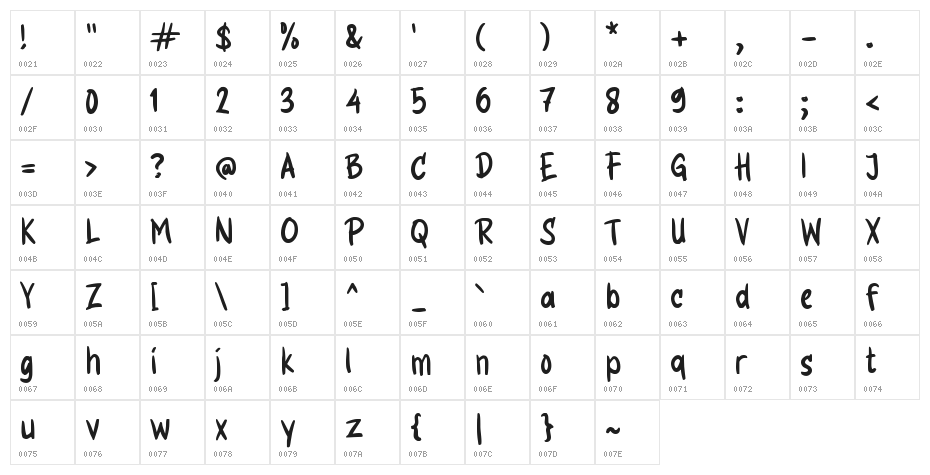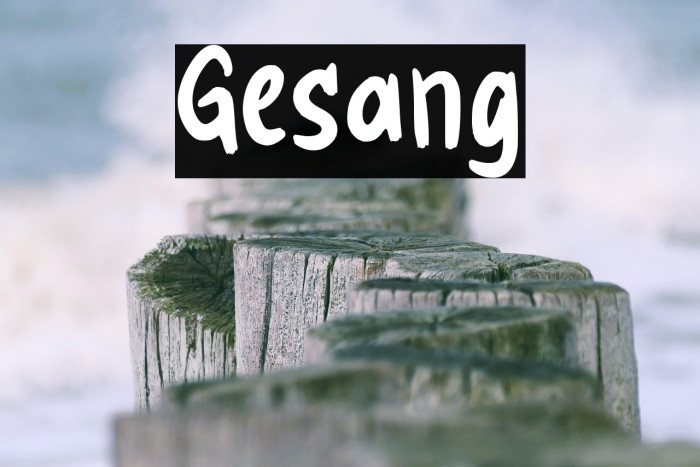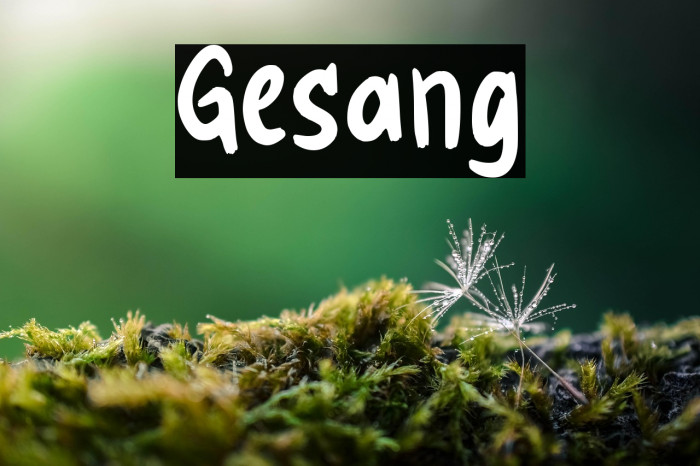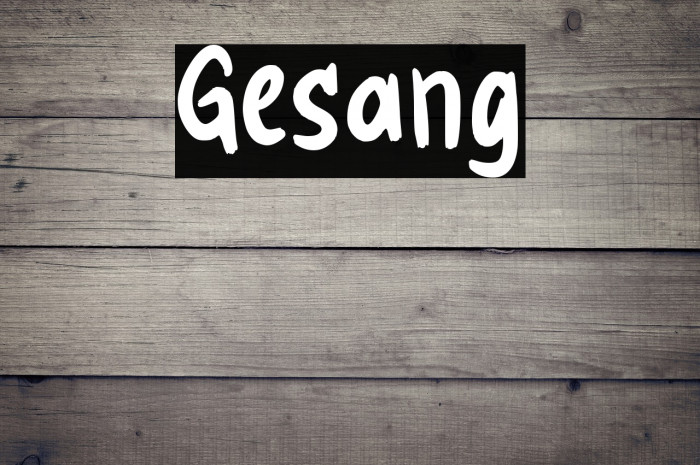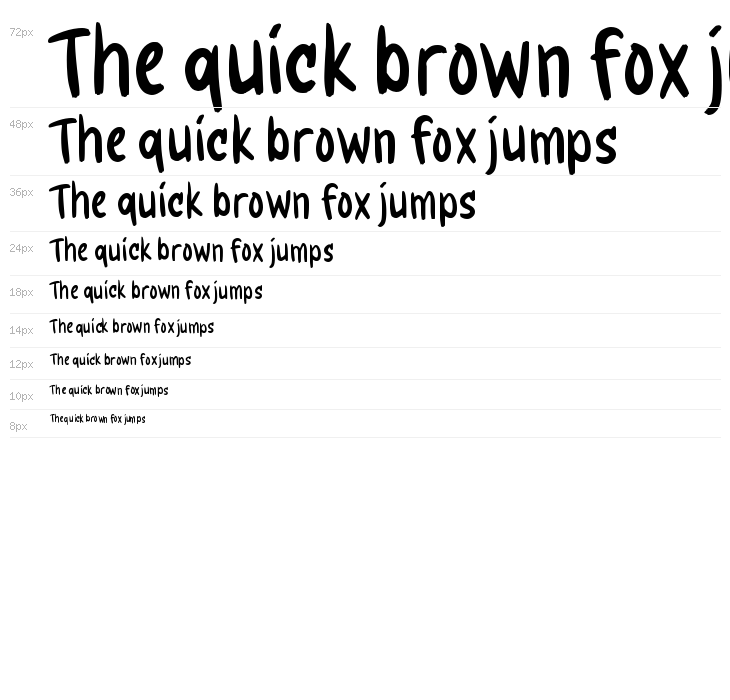
Gesang Font
Gesang Description
This font exudes a playful and energetic vibe with its bold, handwritten style. The characters are slightly irregular, giving it a casual and informal appearance. The uppercase and lowercase letters maintain a consistent flow, while the numbers and special characters complement the overall aesthetic. The strokes are thick and rounded, adding to its friendly and approachable feel. This font is perfect for projects that require a personal touch or a sense of spontaneity.
| Overall Style | Casual |
| Use Case | Logos, Headlines, Informal Invitations |
| Proposed Projects | Ideal for greeting cards, children's books, casual branding, and social media graphics. |